What is a Calm Font?
A calm font typically has a clean, minimalist design with simple letterforms that are easy to read. Some common characteristics of calm fonts include:
- Low contrast: Calm fonts tend to have low contrast between the thick and thin strokes of each letter. This creates a soft, gentle appearance that is easy on the eyes.
- Smooth curves: Calm fonts often feature smooth, flowing curves that create a sense of harmony and balance. This can make the text appear more soothing and peaceful.
- Simple letterforms: Calm fonts usually have simple, unadorned letterforms that are easy to read and not distracting. They often lack decorative flourishes and swashes that can make the text appear busy or cluttered.
- Generous spacing: Calm fonts often have generous spacing between letters and words, which can create a sense of openness and tranquility. This can make the text appear more relaxed and calming.
- Minimalist design: Calm fonts typically have a minimalist design that is unobtrusive and not attention-grabbing. They often have a neutral, understated appearance that can help create a sense of calmness and serenity.
Best Canva Calm Fonts
1. Poppins
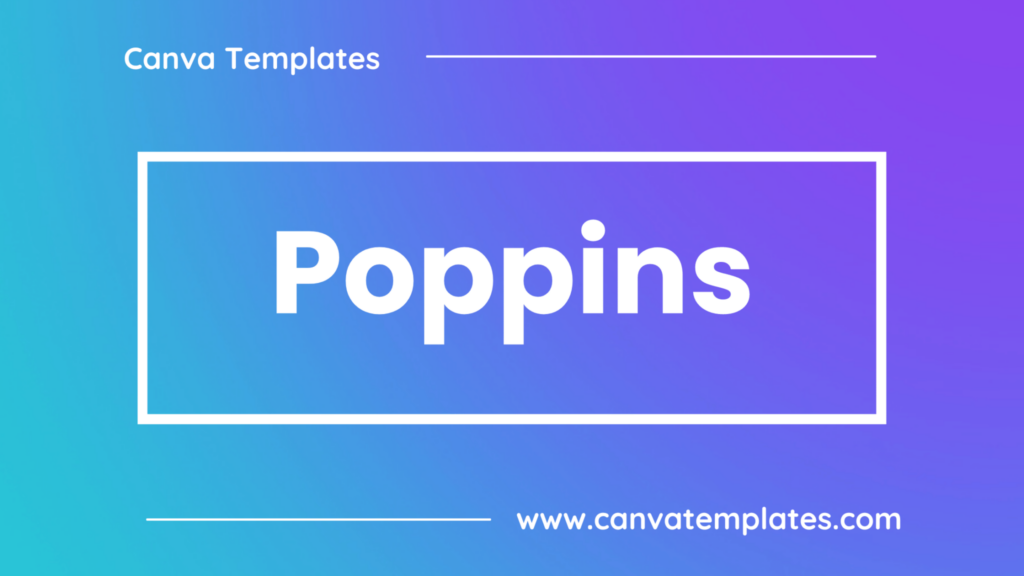
Poppins is a geometric sans-serif typeface designed by Indian Type Foundry. It has a wide range of weights and styles and features rounded corners and open apertures.
2. Yellow Peas
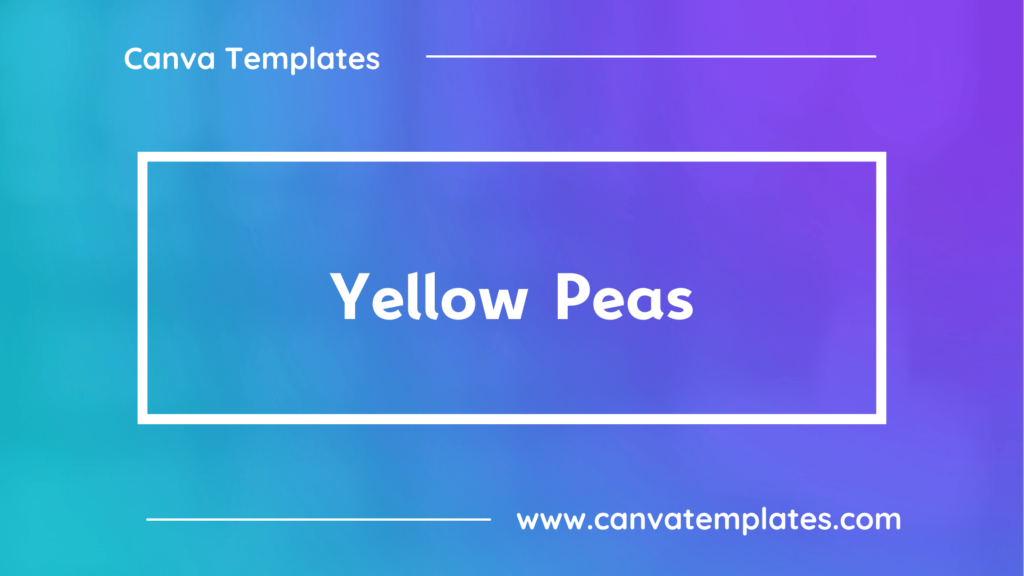
Yellow Peas Font Family was designed by Roland Hüse and published by Roland Hüse Design. Yellow Peas contains 10 styles and family package options.
3. Genty
Genty is a sans-serif font that features a clean and modern design, with condensed letterforms and distinct serifs. It was designed by Indonesian graphic designer, Agga Swistblnk.
The font has a strong geometric structure, with letterforms that are narrow and tall. The serifs on each letter add a touch of elegance and help to distinguish it from other sans-serif fonts. The stroke widths are consistent and uniform, which gives the font a polished and professional look.
4. Oleo Script
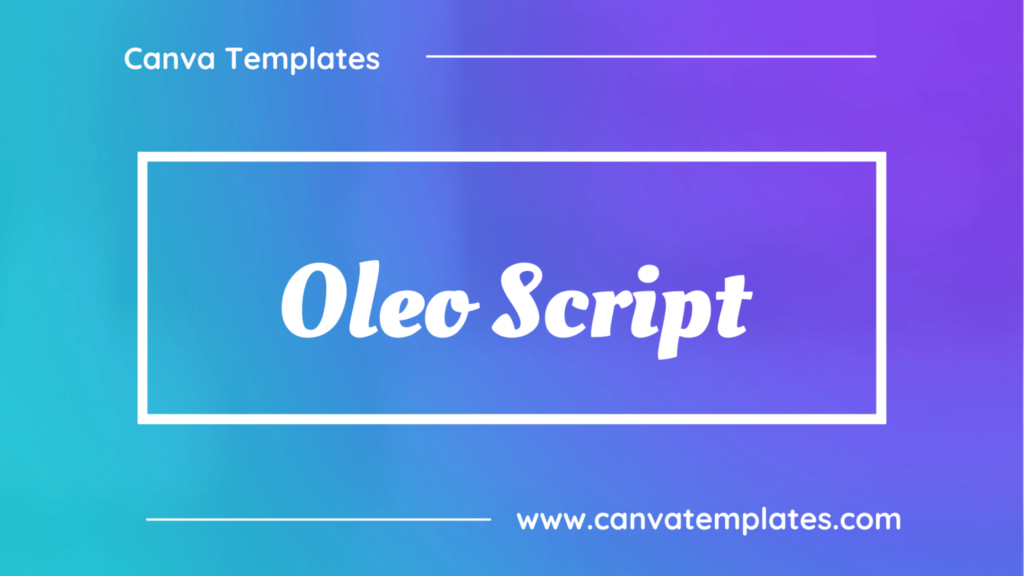
Oleo Script is a script font that features a handwritten and informal design, with a calligraphic feel. It was designed by Brazilian type designer, Sofia Mohr. The font has a smooth and flowing style, with connected letterforms that give it a handcrafted and personal touch. It features gentle curves and flourishes that create a sense of movement and elegance, while maintaining a casual and approachable character. The font also has some variations, such as alternate characters and ligatures, which add to its versatility.
5. Tropika
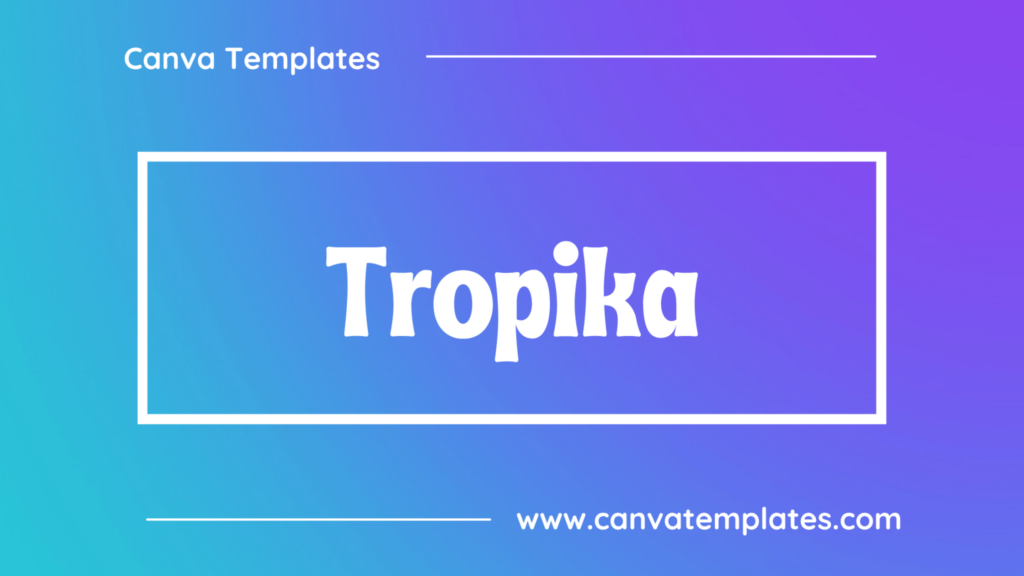
Tropika is a bold display font that features a tropical and exotic design, with a vintage feel. It was designed by Fikry Alif, a graphic designer based in Indonesia.
The font has a strong and distinctive character, with letters that are inspired by vintage travel posters and postcards. The letters have a hand-drawn and irregular quality, which gives the font a sense of warmth and personality. Tropika includes a range of stylistic alternates, ligatures, and swashes, which add to its versatility.
6. Clicker Script
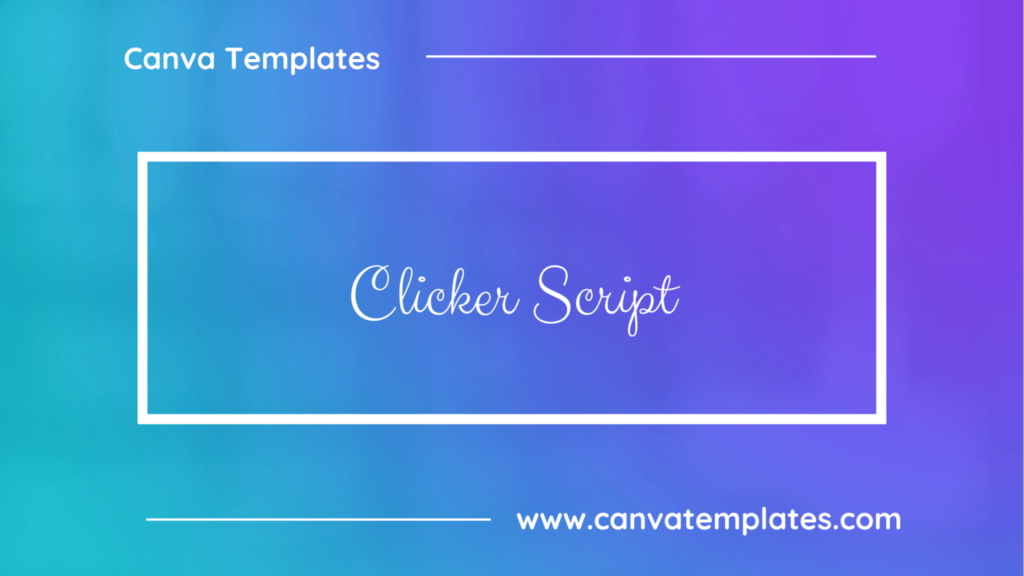
Clicker Script finds its inspiration from RCA Records Stereo Action Series from the 1960s. This signature elegant yet slightly bouncy script truly sings and lends a happy-go-lucky flavor to any design. Designed by Brian J. Bonislawsky and Jim Lyles for Astigmatic (AOETI).
7. Sego
Sego is a vintage style serif font with an elegant and modern touch, this font is amazing for different character characters. This font has several alternatives available in it, suitable for creating logo designs, badges, web fonts, magazines, and others. With a very strong font character, it will make your design different and more attractive.
8. The Seasons
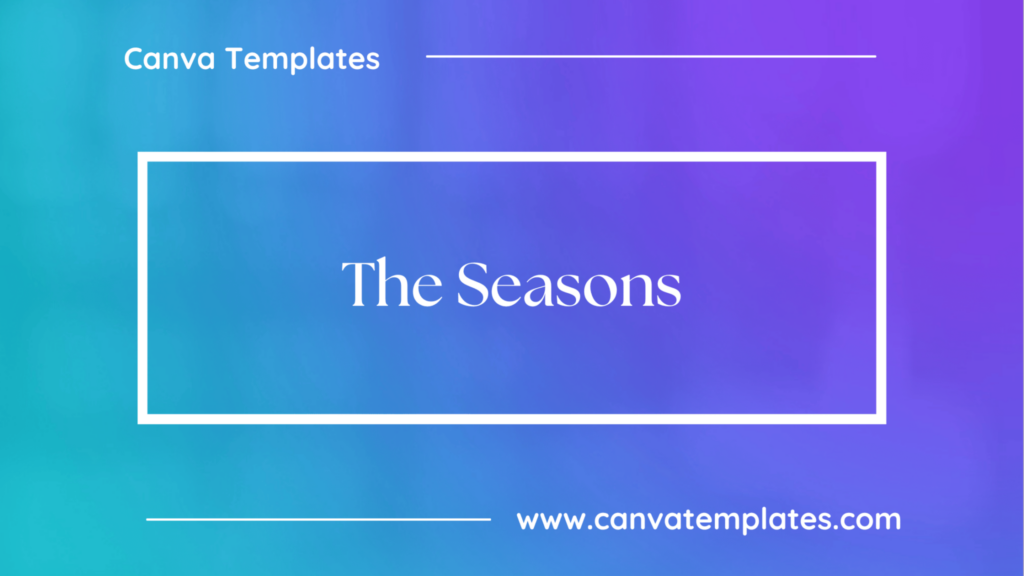
The Seasons is an elegant classic serif font family consisting of high contrast serif fonts with a vintage chic look, with corresponding calligraphic cursive italics that are based on several humanist italic scripts and written with a Pilot Parallel Pen.
9. Lovelo Line
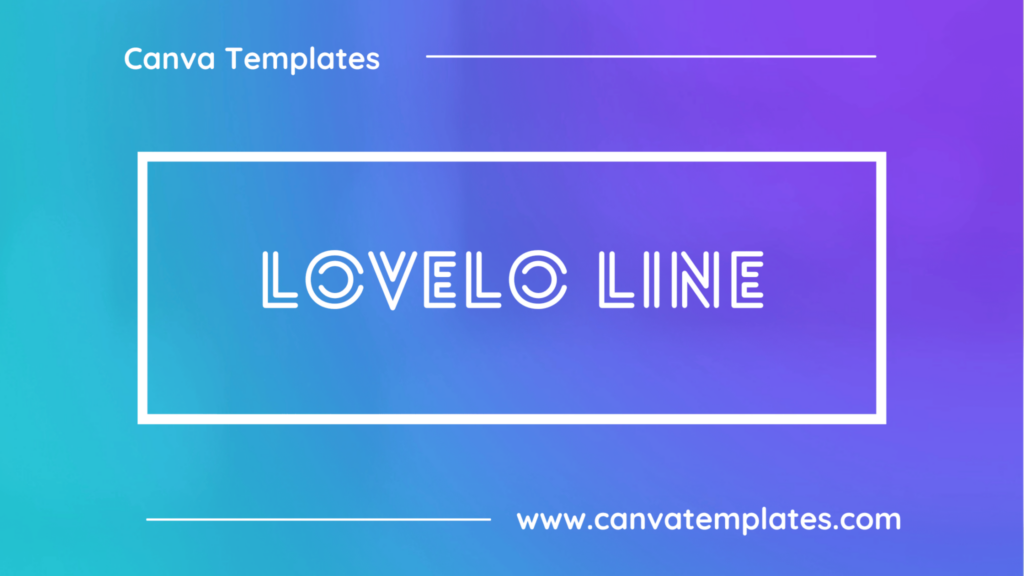
Lovelo Line is a sans-serif font that features a bold, geometric design. It has a modern, clean appearance and is well-suited for use in projects that want to convey a sense of simplicity, minimalism, or sophistication.
10. Tan Mon Cheri
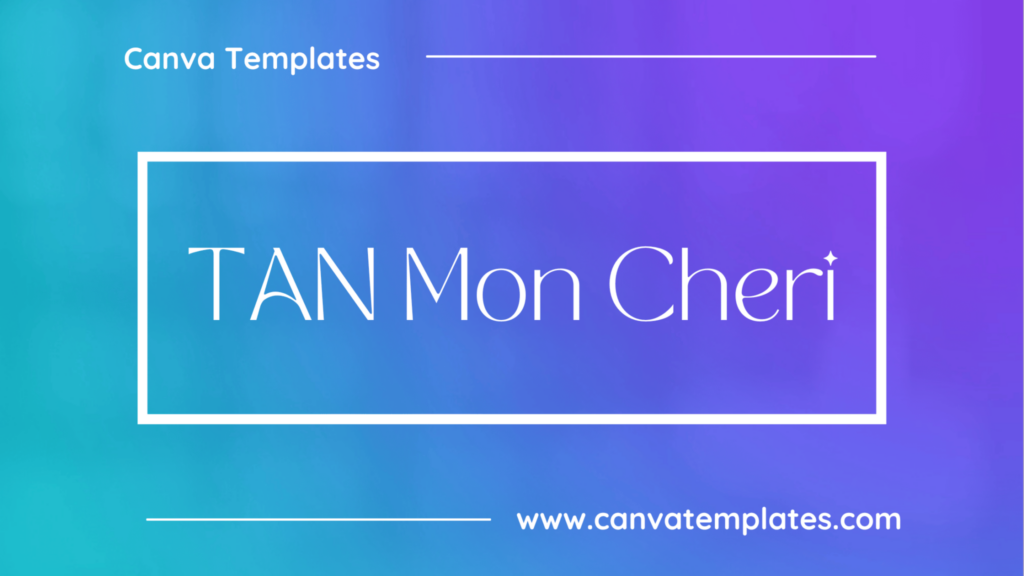
Tan Mon Cheri is is an elegant sans serif font. The thin and minimalist strokes evoke a sense a of calm and harmony.
Conclusion